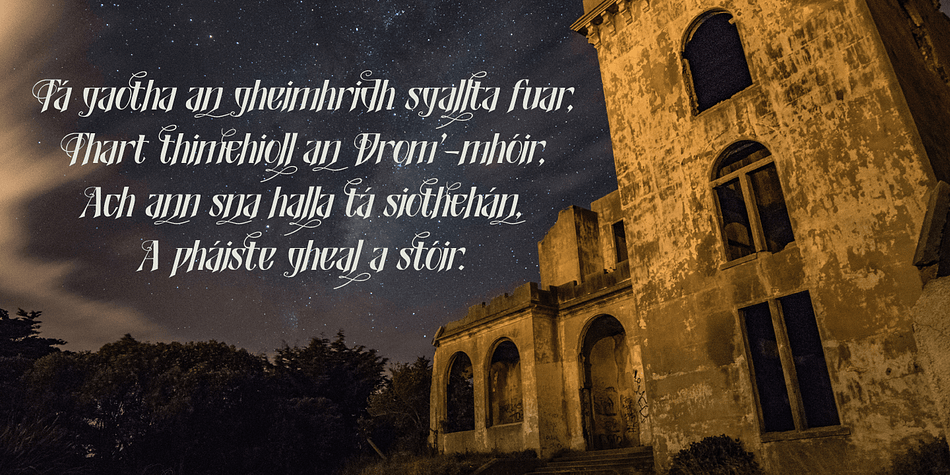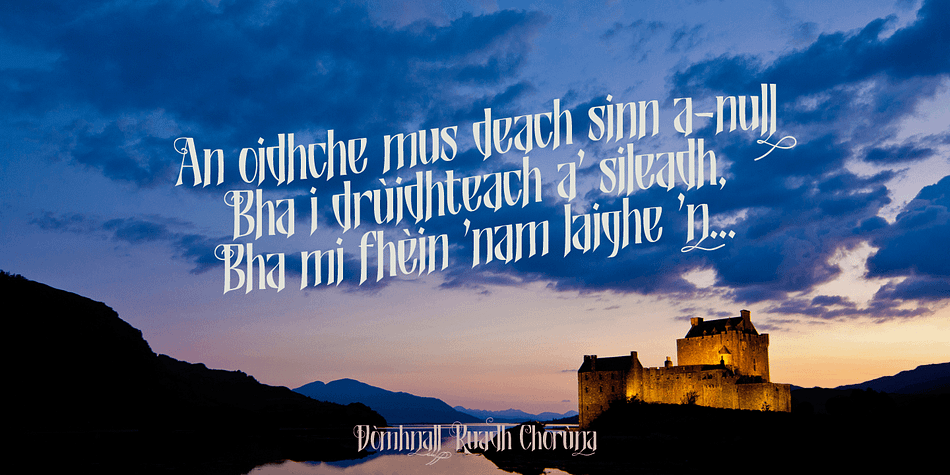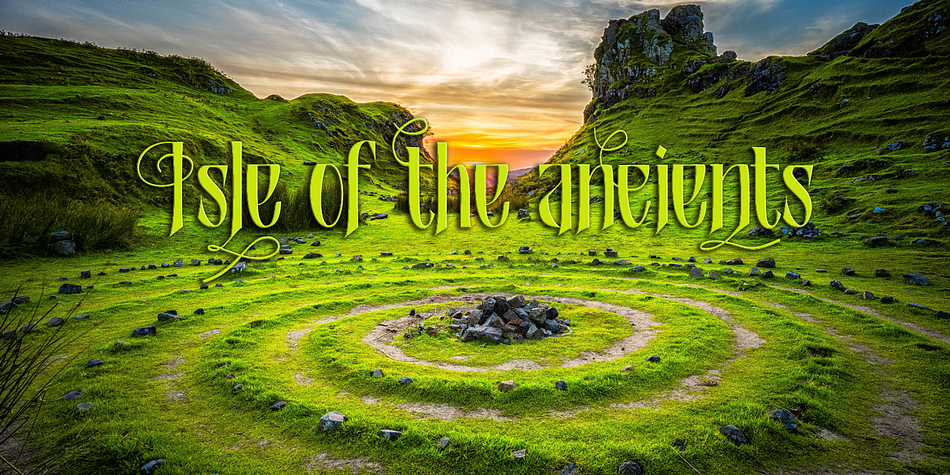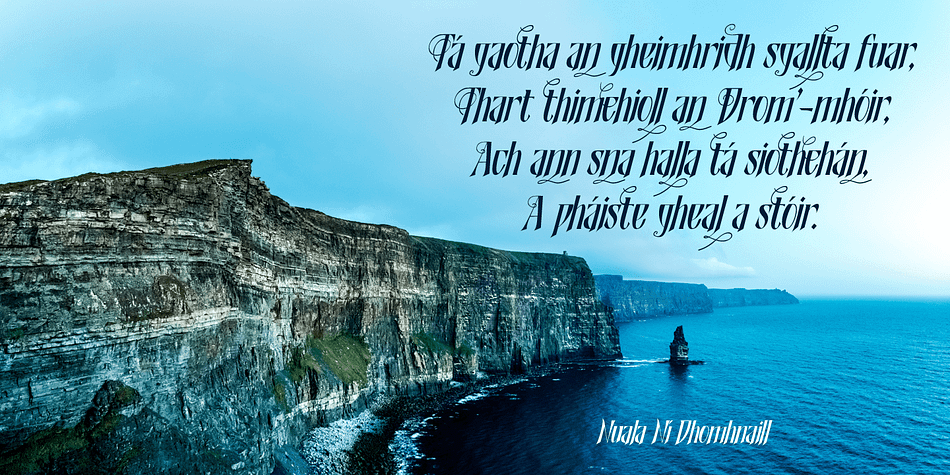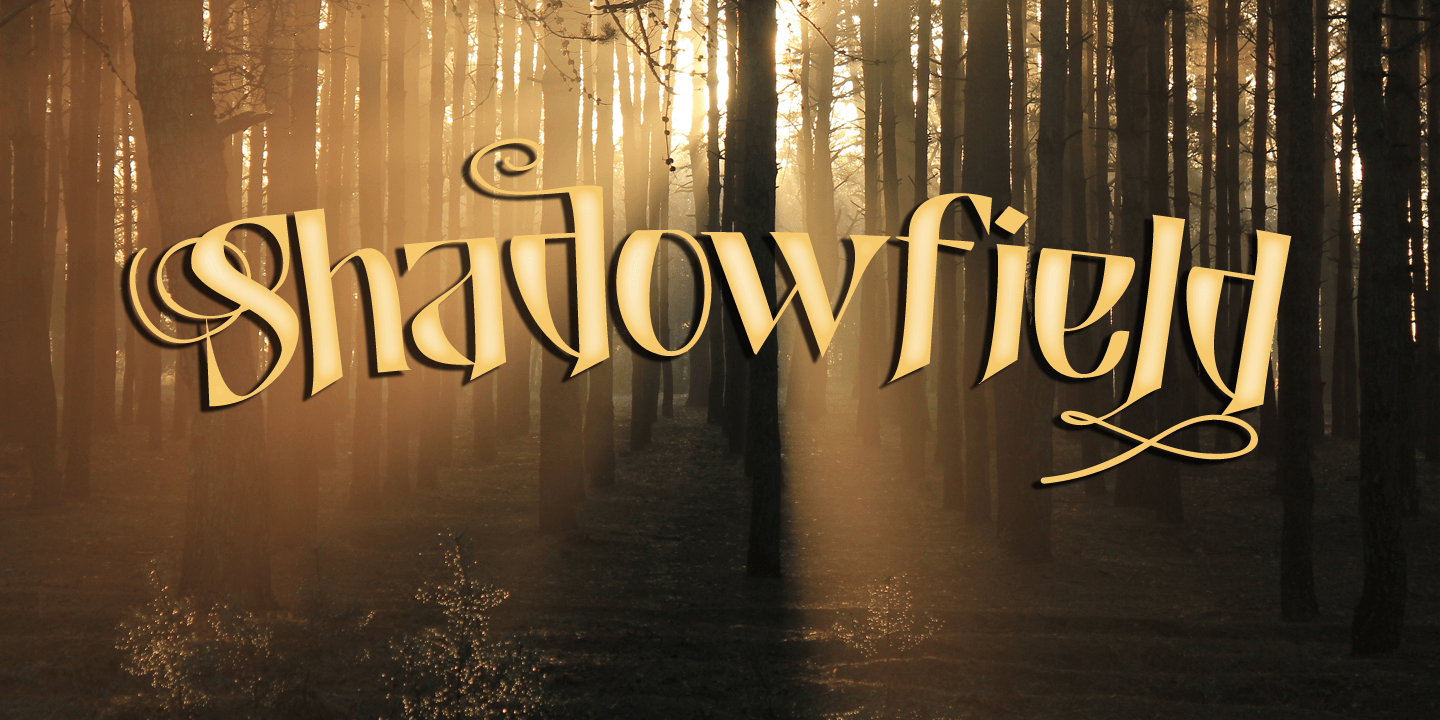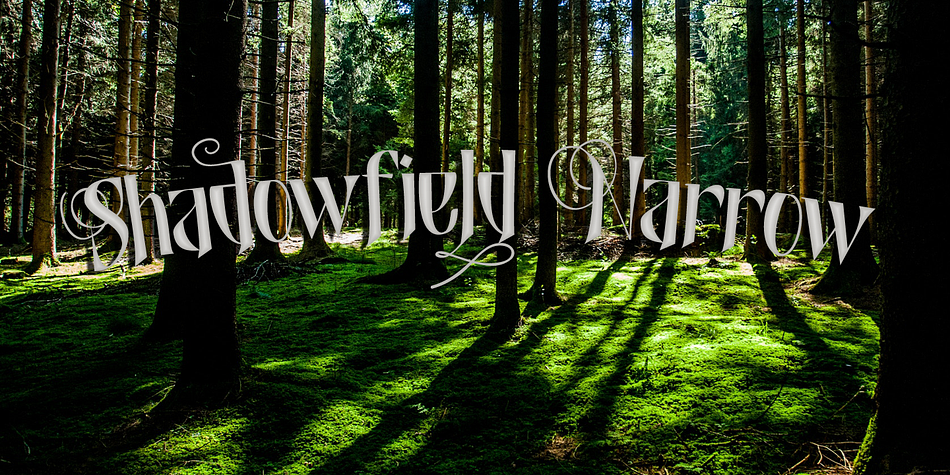
Designed by David Kerkhoff, Shadowfield is a display font family. This typeface has four styles and was published by Hanoded.
Shadowfield is a fantasy font which was inspired by the hand lettering on the Spiderwick movie posters (which itself was apparently based on Hand Skript One). Every glyph was drawn by hand, using a gel pen on 160 grams paper. Shadowfield will look good on anything fairy-like - book covers, toy packaging and even bottles of home-made mead!
Comes with swashed alternates for all capital letters and some lower case ones as well.